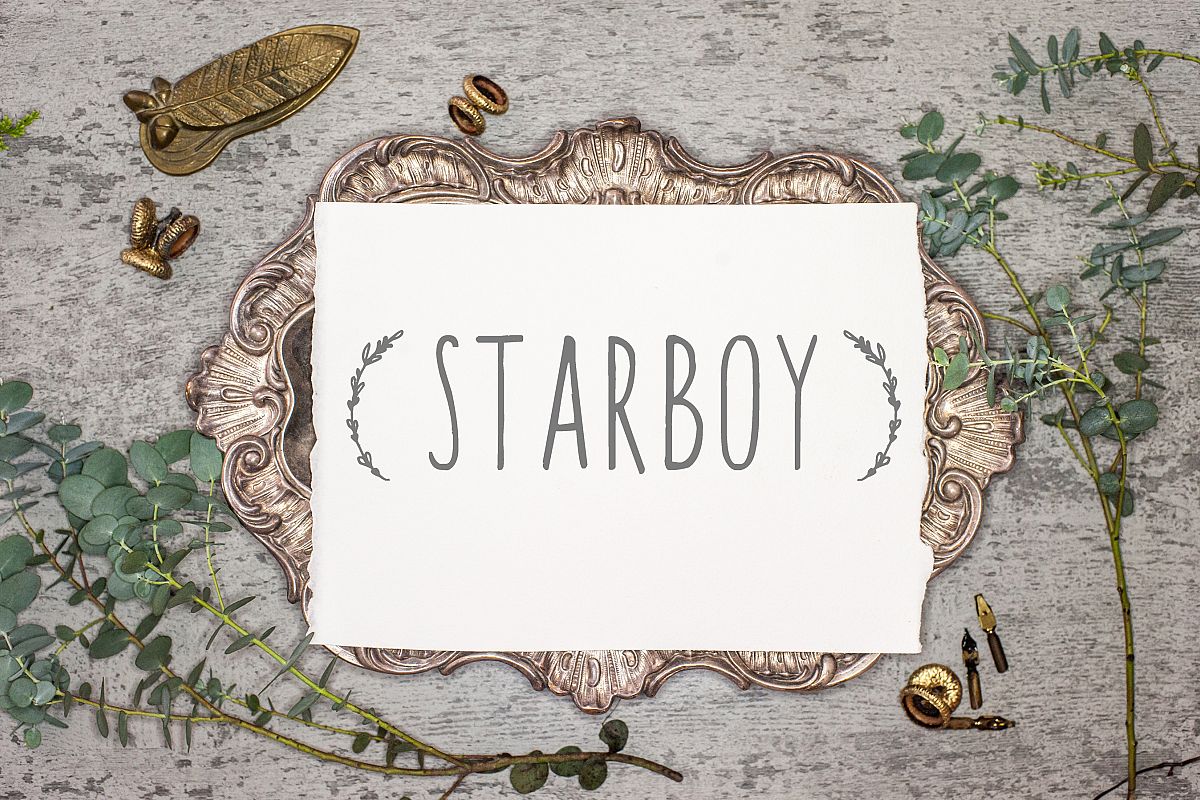
Starboy. Handwritten typeface.
Star boy
Branches ornamen
The handwritten font STARBOY .
This is generic, readable handwritten font, will works well in every kind of design.It looks fantastic for branding, logos, and websites as well!You will also receive calligraphic ornaments with tiny branches which will be ideal for branding, wedding invitations, logos...You will receive: OTF STARBOY font TTF STARBOY font WOFF STARBOY font OTF/TTF/WOFF BRANCHES ORNAMENTSIf you have any questions or need my assistance, please don't hesitate to contact me.